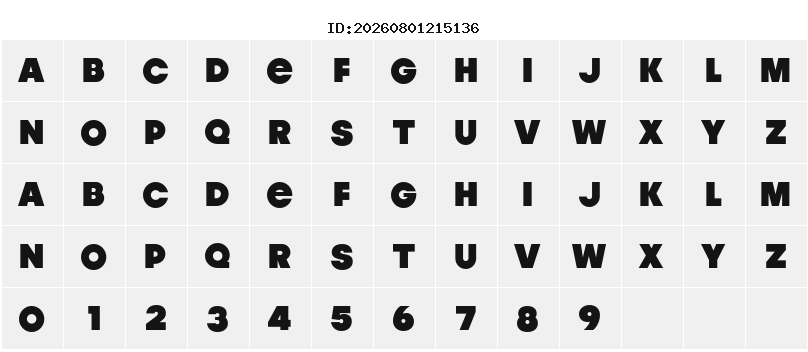
• Designer: Ray Larabie
• Manufacturer: Ray Larabie
About Meloriac.ttf
Meloriac.ttf is a modern, elegant sans-serif font designed for ultimate readability and visual harmony. Perfect for branding, headlines, web design, and print materials.